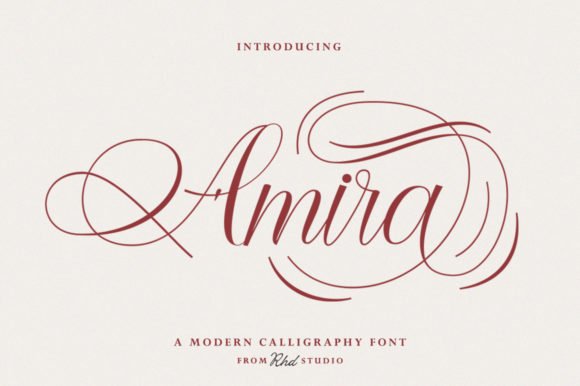
Unleashing the Beauty of Amira Font
Have you ever been scrolling through social media, and a beautiful, elegant font catches your eye? That’s exactly what happens when you use the Amira Font. It’s a stylish and slim script font that can elevate any design project from ordinary to extraordinary.
Amira Font is perfect for product packaging, branding projects, magazine covers, social media, weddings, and more. Its versatility and sophistication make it a valuable asset for designers looking to add a touch of elegance to their work. Whether you’re a seasoned designer or just starting out, Amira Font is sure to become a favorite in your creative toolbox.
- Unique Characteristics: Amira Font features a unique blend of modern and traditional design elements, with a focus on legibility and readability in both print and digital formats.
Amira Font Review
Amira Font is a beautiful, elegant script font that I had the chance to work with. Overall, I’m impressed with its design and versatility.
- Amira Font has a stunning, handwritten feel that adds a touch of sophistication to any design.
- The font is highly legible, making it perfect for body text, headings, and even titles.
- The font has a wide range of languages supported, making it a great option for global brands and businesses.
- The font may not be the best option for bold, condensed text, as it can become a bit difficult to read.
- The font’s italic styles can sometimes appear a bit inconsistent, which may require some adjustments.
- The font may not be suitable for very small text sizes, as it can become a bit fuzzy.
Amira Font is a solid choice for designers who need a beautiful, elegant script font. While it may have some limitations, its strengths make it a great option for a wide range of design projects.
Tips for Getting the Most Out of Amira Font
Use Amira Font for headings and titles to add a touch of elegance to your designs.
Combine Amira Font with other fonts to create a unique and eye-catching typography.
Experiment with different font sizes and colors to create a visually appealing effect.
Amira Font is perfect for:
Branding and marketing materials.
Editorial and publishing projects.
Alternatives to Amira Font for Designers
Ostrich Sans is a modern sans-serif font designed for digital use. It features clean lines, a large x-height, and excellent legibility. Use it for digital products, apps, and websites where a clear and modern feel is desired.
Compared to Amira Font, Ostrich Sans is more modern and has a larger x-height, making it ideal for digital use. However, Amira Font has a more elegant and refined feel, making it suitable for luxury and high-end brands.
Lato is a sans-serif font designed for use in digital products and print materials. It features a clean and elegant design, with a wide range of weights and styles to choose from. Use it for branding, signage, and marketing materials where a professional and sophisticated feel is desired.
Compared to Amira Font, Lato is more versatile and has a wider range of weights and styles. However, Amira Font has a more unique and exotic feel, making it suitable for brands that want to stand out from the crowd.